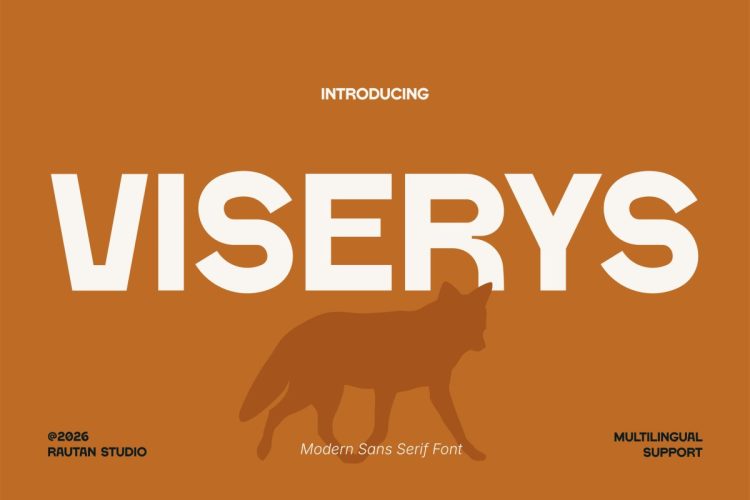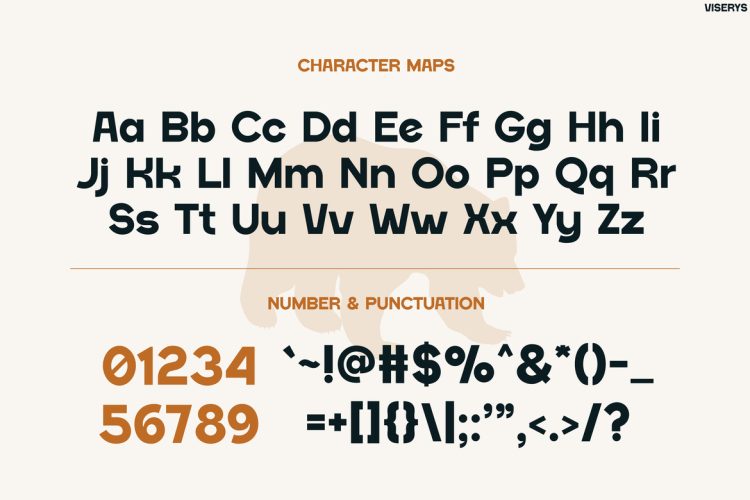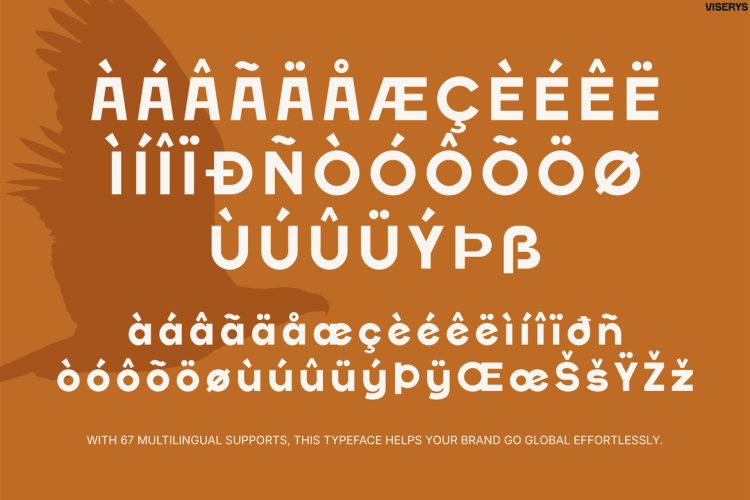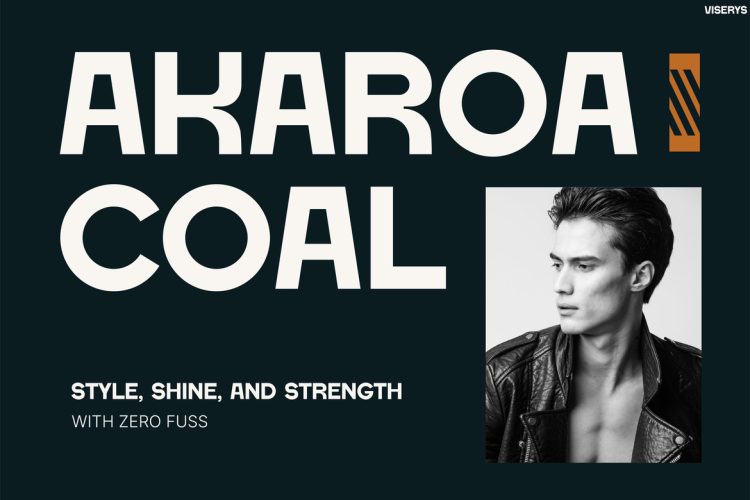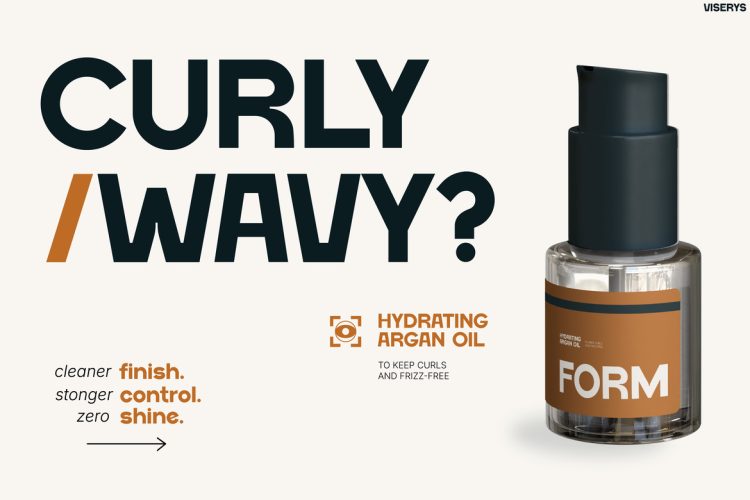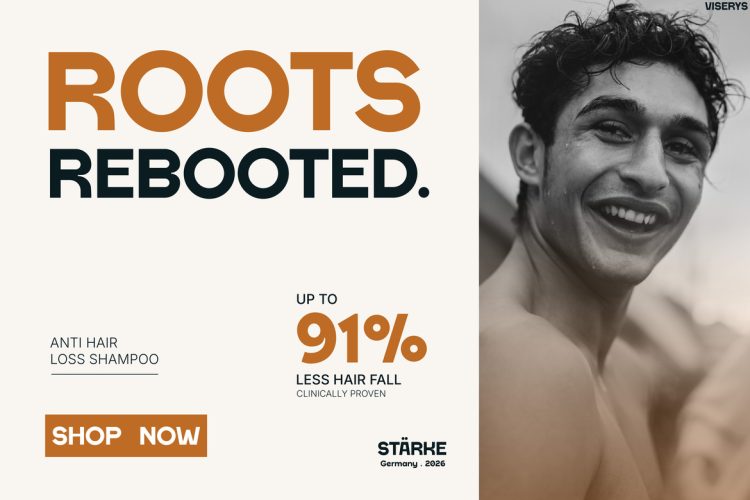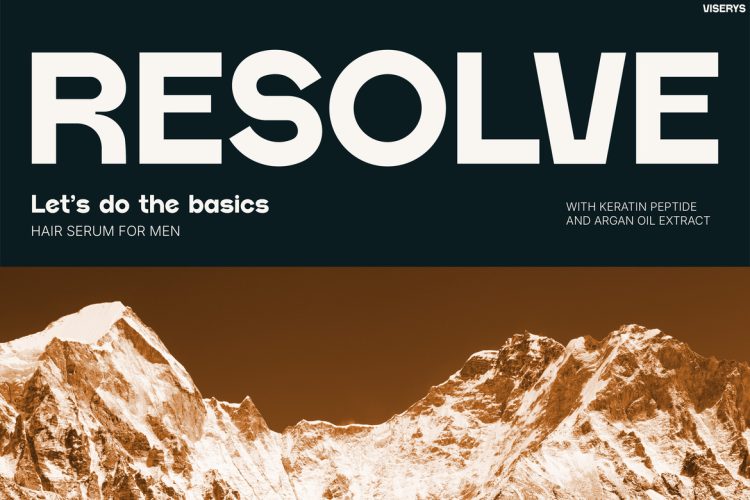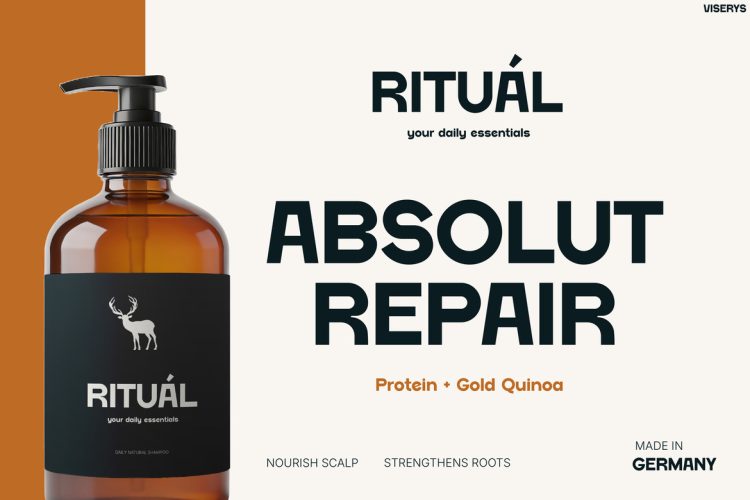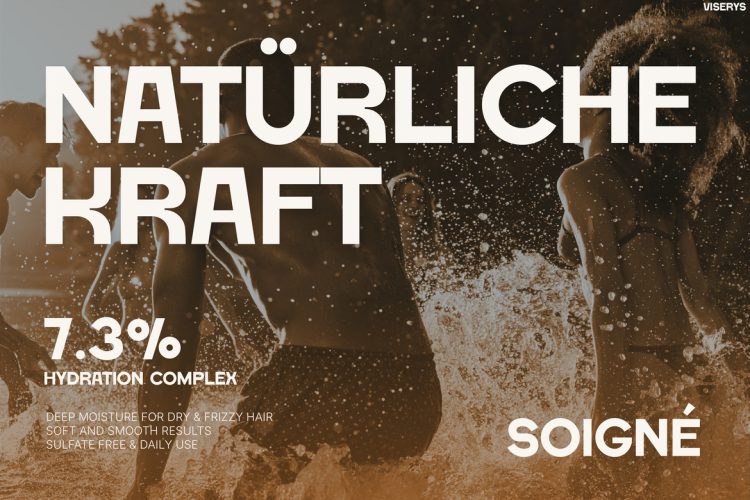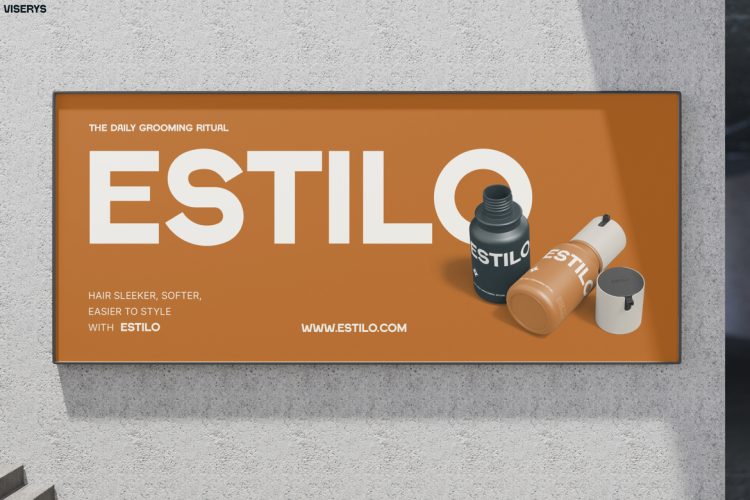
Viserys โ Bold, Modern & Urban Display Font
Modern Font Viserys is a bold display font built for clean, powerful, and contemporary designs. With its strong geometric shapes and confident letterforms, VISERYS creates an instantly modern aesthetic. Moreover, its compact structure gives headlines a sharp and professional look. At the same time, the bold forms keep your message clear and highly visible. Therefore, VISERYS is perfect for designs that need a strong visual statement. In addition, it includes Multilingual Support for 67 Languages, making it flexible for global creative projects.
Whether you are creating a fashion campaign or a modern brand identity, VISERYS adds instant impact. Furthermore, it works great for logos, posters, magazines, packaging, skincare, cosmetics, apparel, product branding, social media, advertising, and editorial designs. Additionally, its urban character suits designers, creative studios, entrepreneurs, and modern lifestyle brands. Because of its bold appearance, VISERYS looks especially striking in large headlines and promotional graphics.
Make Your Design Bold